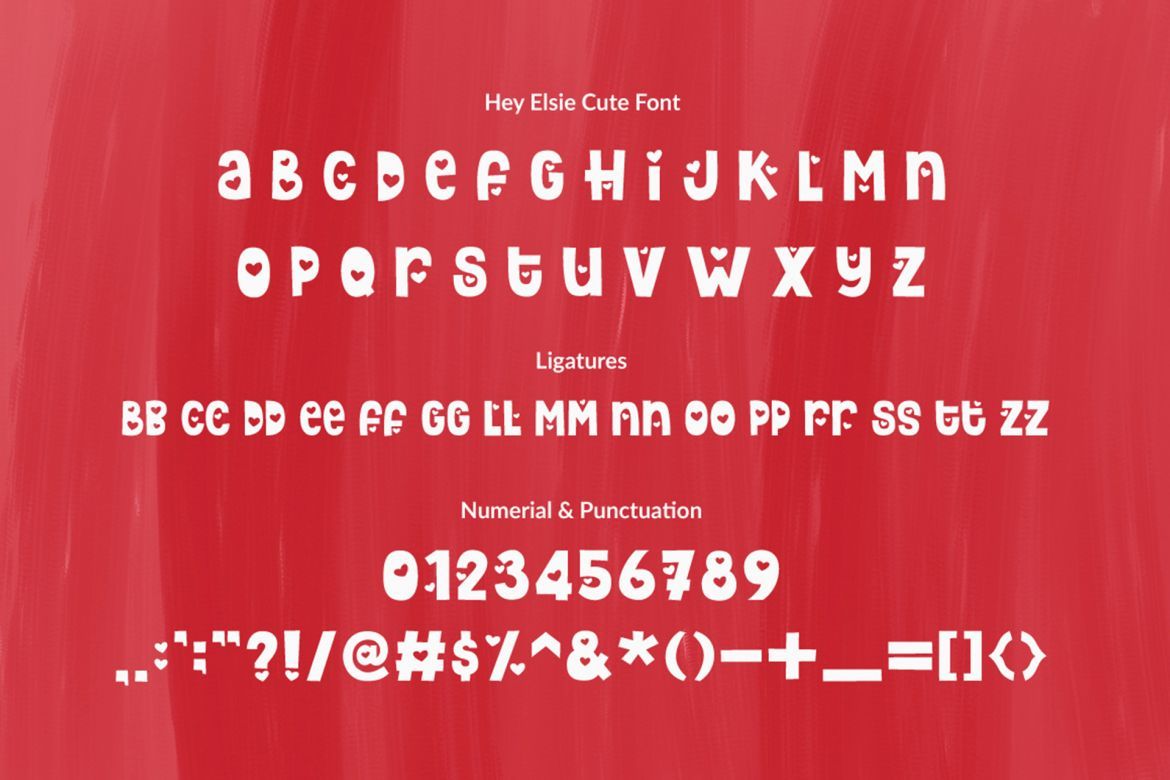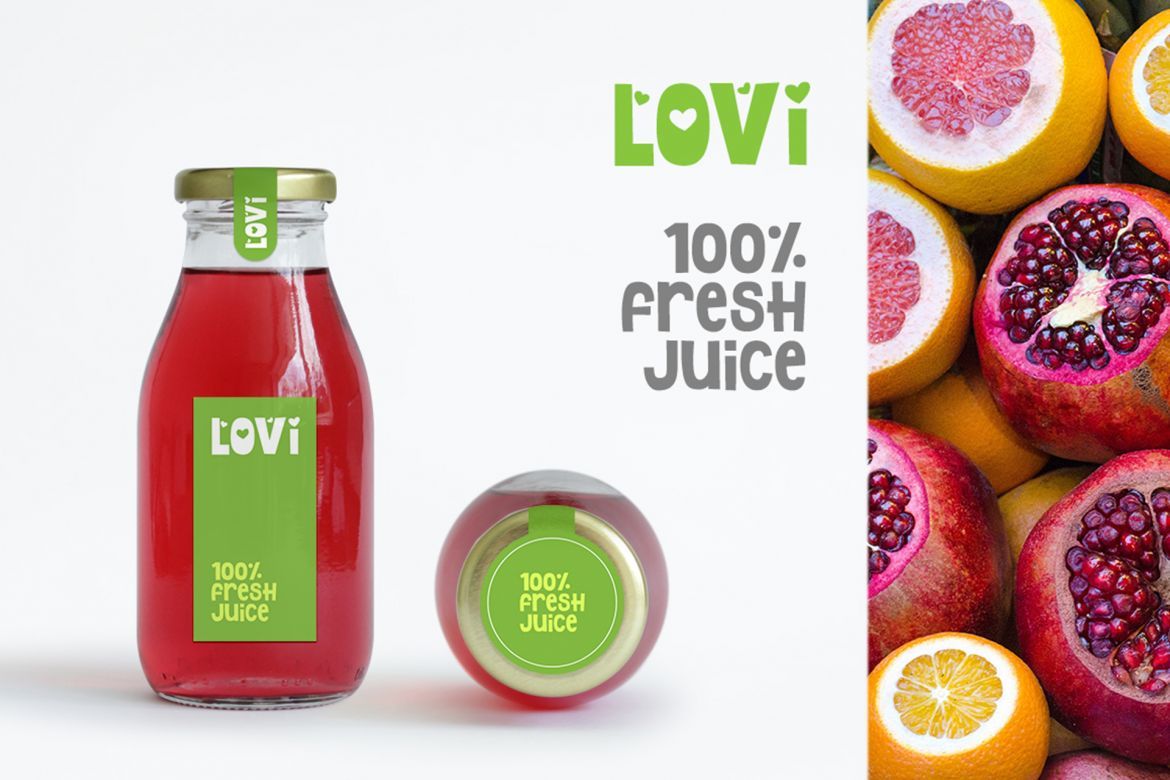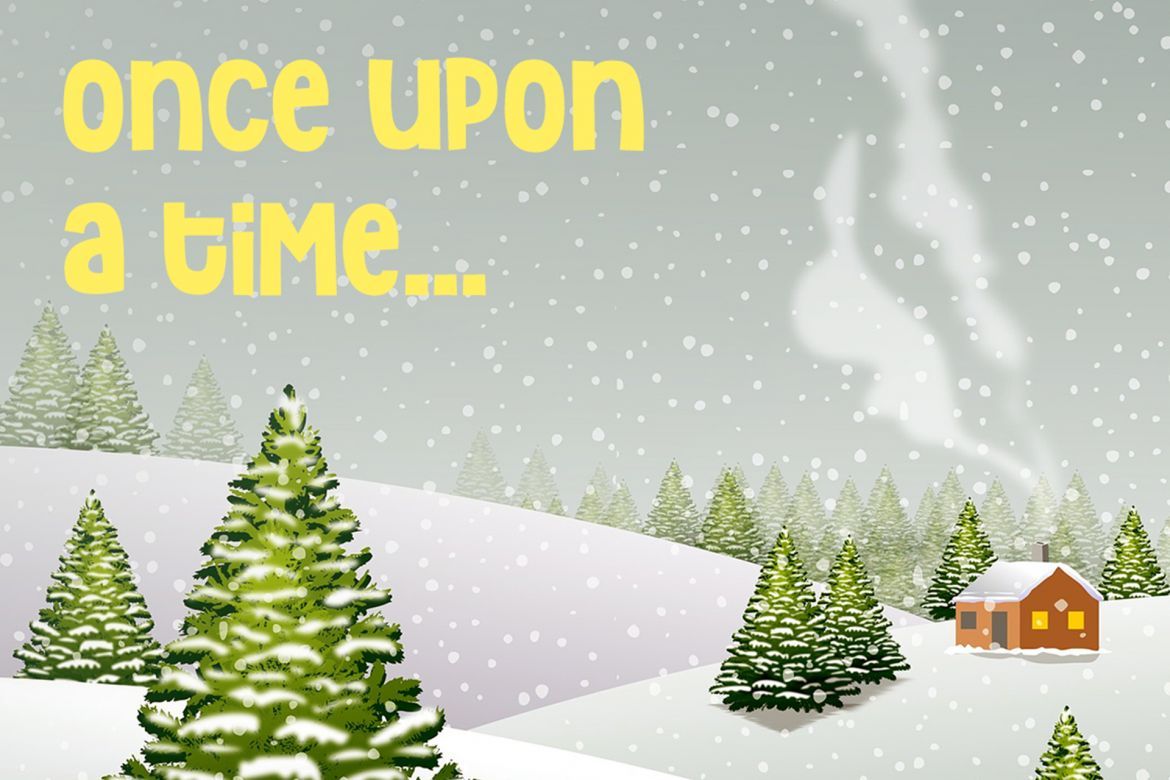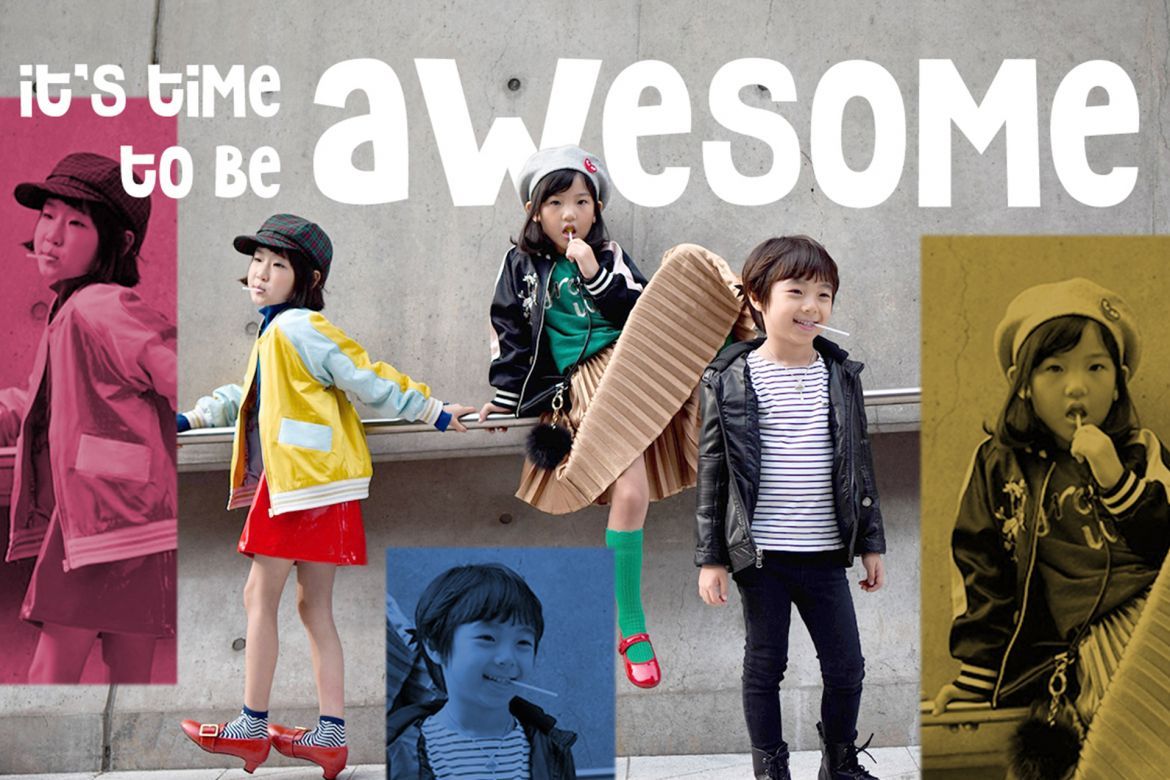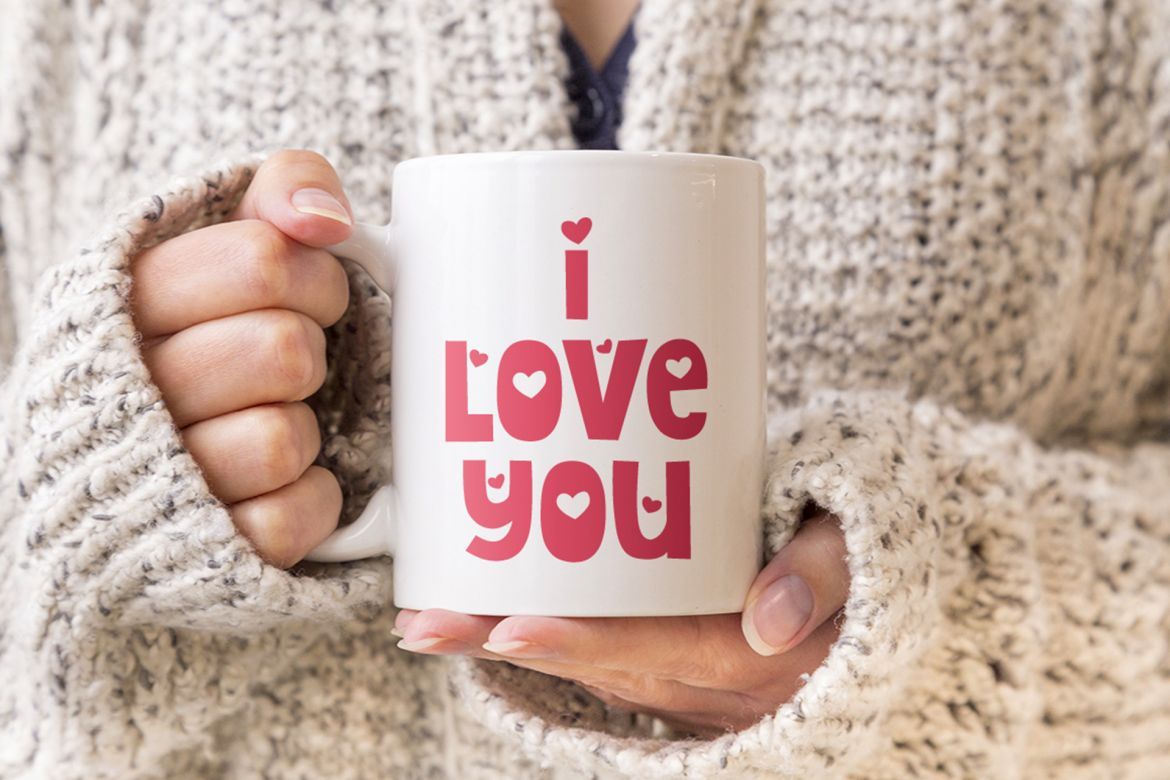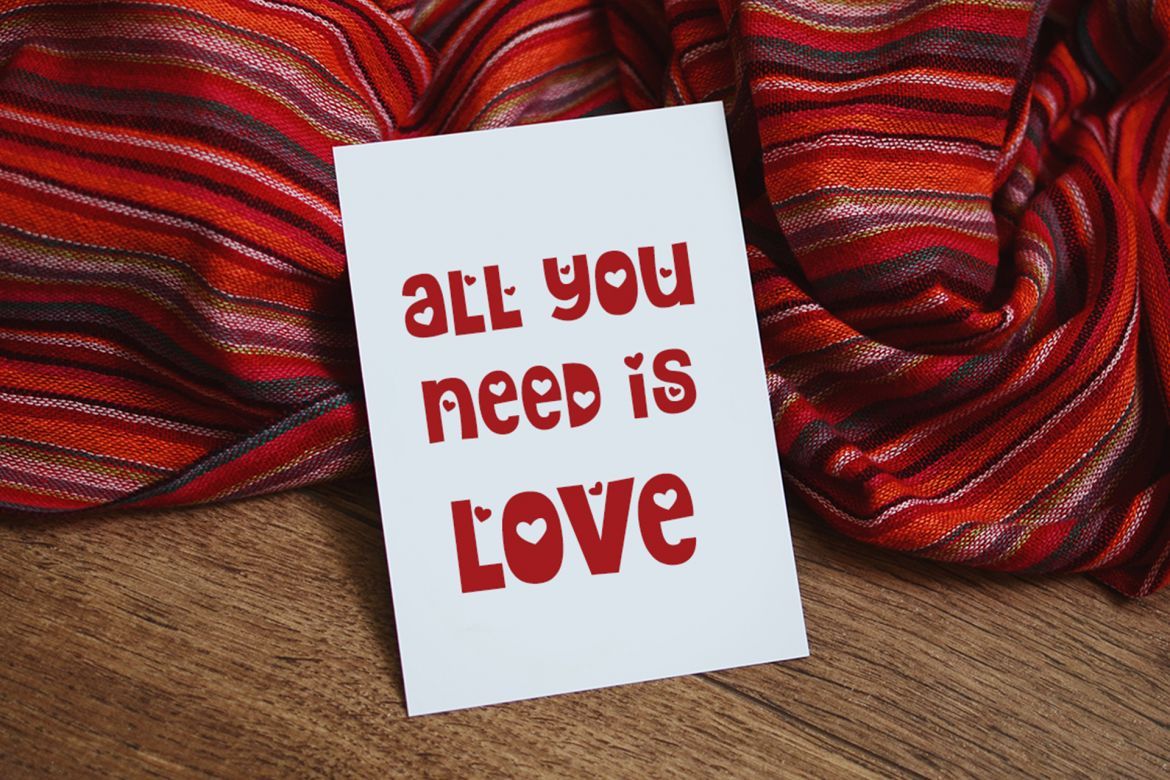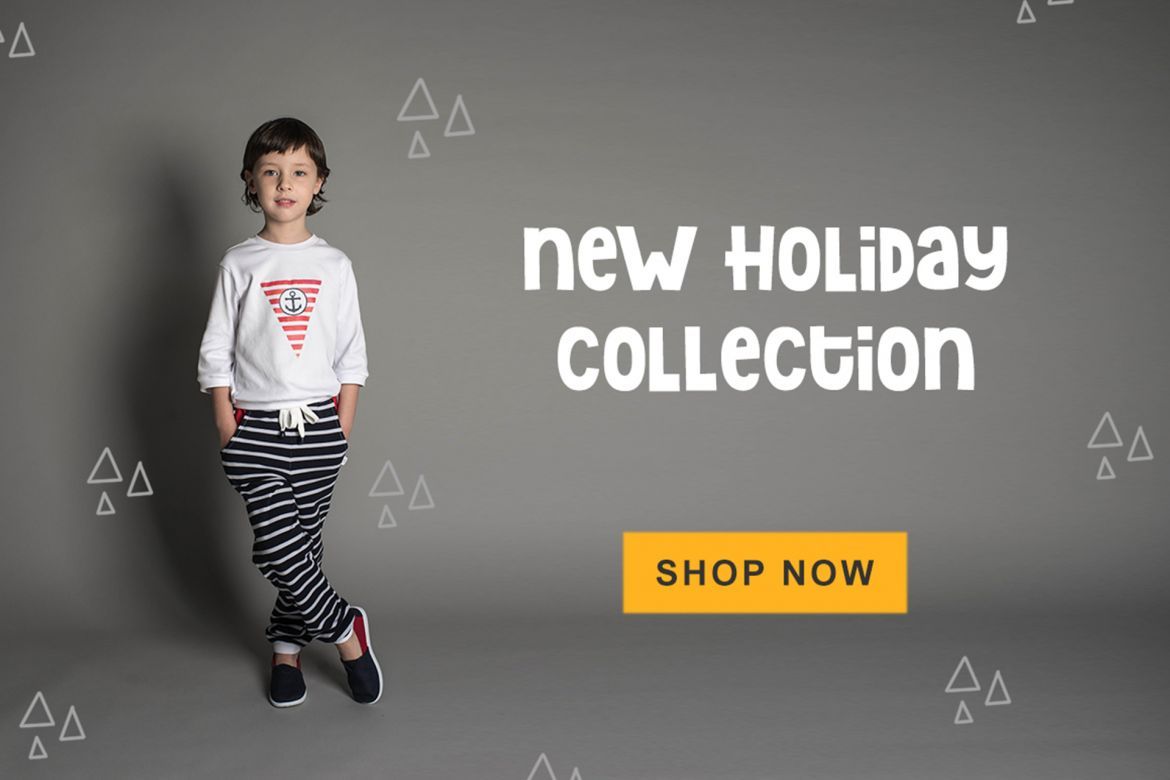
Hey Elsie | Two Font Syle
The Hey Elsie is an lovely display font. It comes in a regular version and a cute version, which can be combined perfectly! The cute version includes amazing hearts which will give your design a cute and playful touch.
• two font styles | regular and cute version with heart decoration